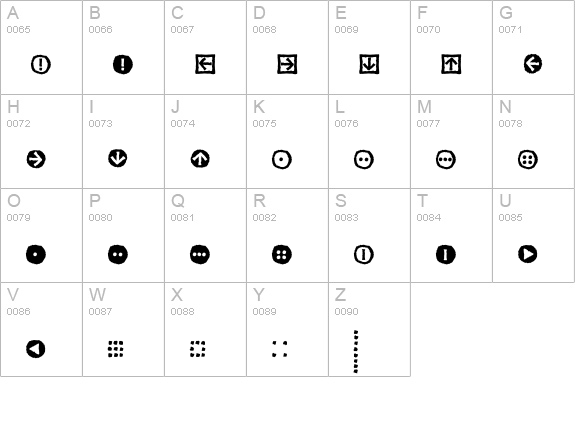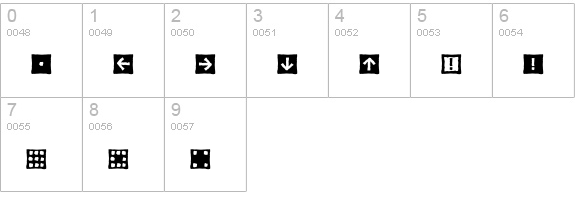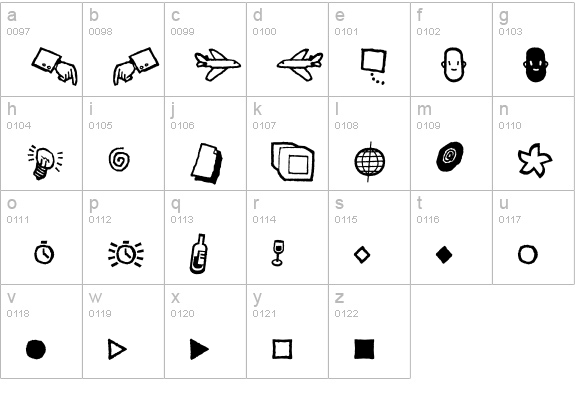
Kosmik-Glyphs Font Details
Kosmik-Glyphs is a striking and modern font that combines cosmic elements with intricate glyphs, creating a unique and otherworldly design. The fusion of bold lines and intricate details in this font makes it perfect for projects that require a touch of mystique and futuristic flair. This font is not only visually captivating but also versatile, suitable for a wide range of design projects including branding, posters, merchandise, and more. Its bold and distinctive appearance will make your text stand out and leave a lasting impression on viewers. And the best part? Kosmik-Glyphs is completely free! You can easily download this font from FontsMarket.com, making it accessible to all designers looking to add a touch of cosmic magic to their creations. Don't miss out on the opportunity to enhance your designs with this captivating and free font today!